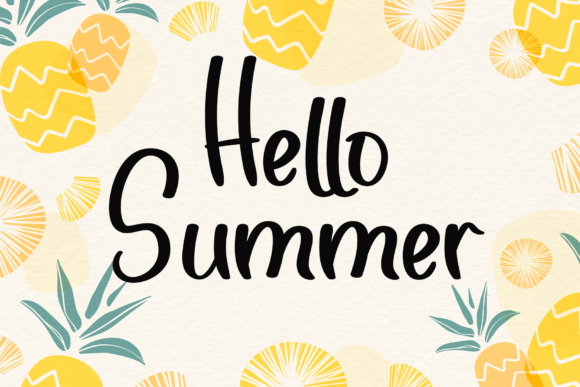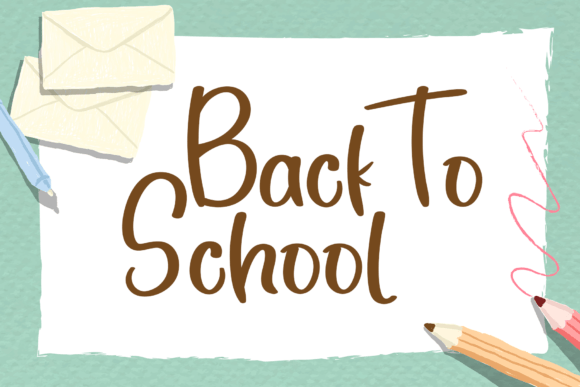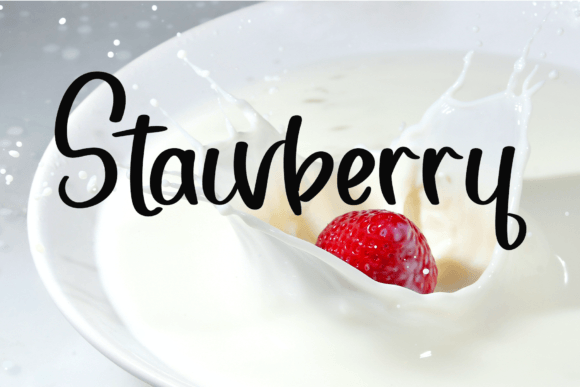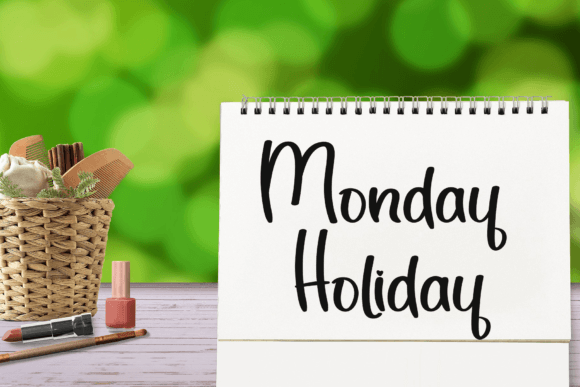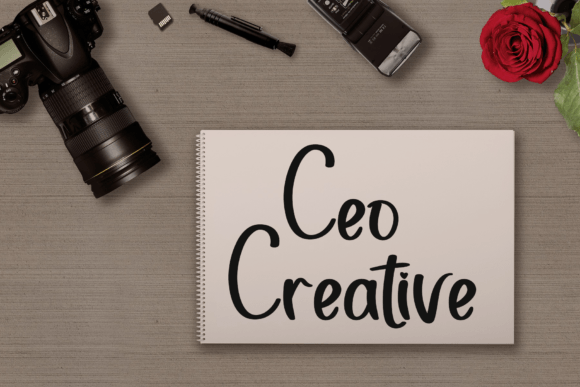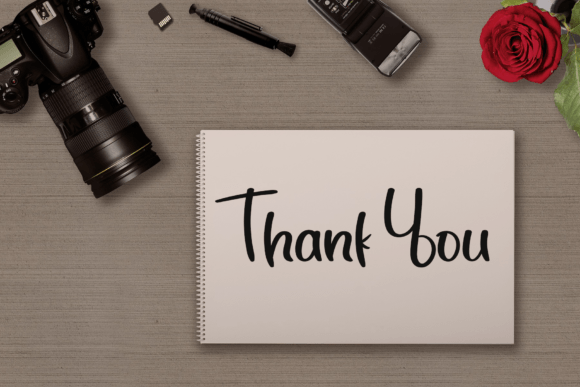
Pineapple Font
About Pineapple Font
“Pineapple” is a neat and beautiful handwritten font characterized by an elegant touch, making it perfect for a variety of creative projects. This font is designed to bring a sense of sophistication to your favorite endeavors, creating a distinct and timeless style that captures attention.
The neat and beautiful attributes of “Pineapple” make it well-suited for a wide range of design purposes. Whether you’re working on branding, logos, invitations, stationery, or social media posts, this font adds a touch of elegance to your creations.
The distinct and timeless style of “Pineapple” ensures its versatility across different design contexts. Its handwritten aesthetic brings a personal and authentic touch, allowing you to create designs that are both memorable and sophisticated.
Incorporating “Pineapple” into your projects is an opportunity to infuse them with a sense of timeless beauty. This font becomes a reliable tool, ready to enhance the visual impact of your designs and add a touch of distinctiveness to your creative expressions.
In summary, “Pineapple” is more than just a font; it’s a neat and beautiful design asset that brings an elegant touch to your favorite projects. With its distinct and timeless style, “Pineapple” stands ready to be the perfect companion for a variety of creative endeavors, making your designs spectacular, sophisticated, and uniquely crafted.